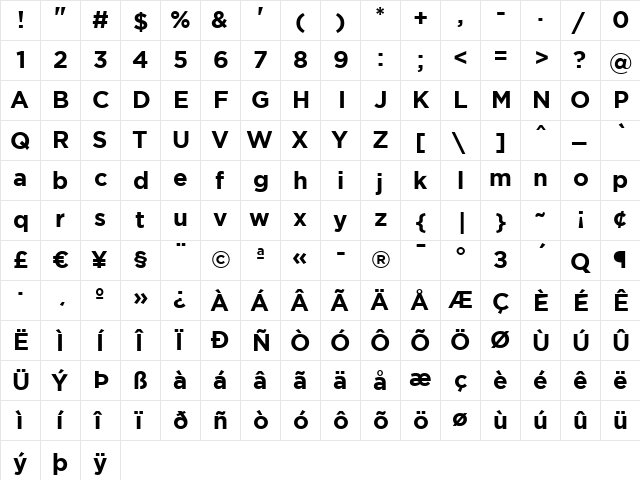
Gotham Bold Regular
Design Context for Gotham Bold Typeface
Gotham Bold takes a measured approach to typography — its balanced proportions and neutral character make it a reliable workhorse for both digital and print work. The heavy weight commands attention and anchors typographic hierarchies.
Pro Tip: Use Gotham Bold in both headline and body roles to test its range before committing to a single application.